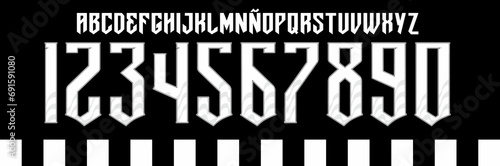
font vector team 2023 - 2024 kit sport style font. football style font with lines. botafogo font. The fogao. sports style letters and numbers for soccer team. league Brazil.